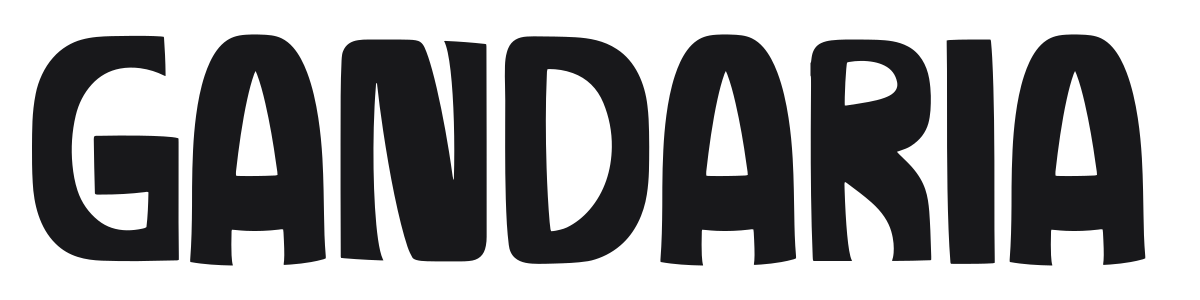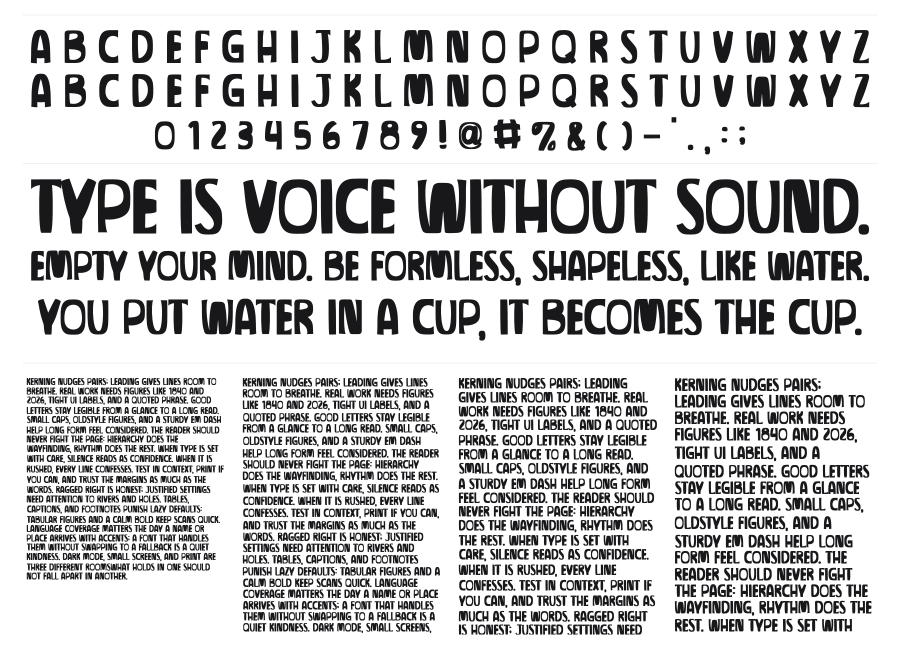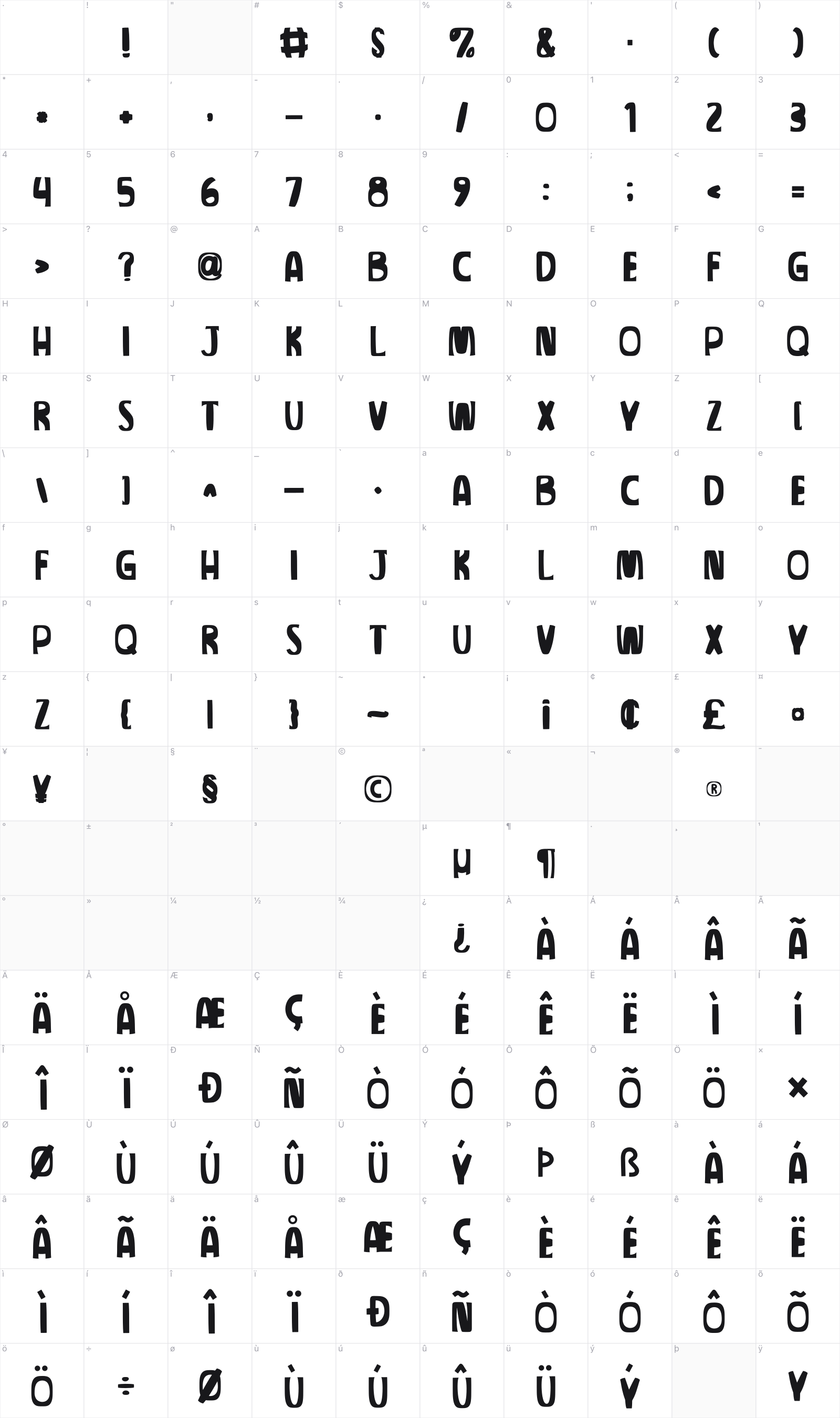
Gandaria
Gandaria is a heavy display font with a bold, blob-like personality drawn from 1960s and 70s groovy lettering traditions. Each character has an inflated, organic quality, with swelling strokes and pinched counters that give the word texture an almost hand-sculpted feel. It brings a retro funky energy to posters, album art, and any branding that wants to feel loose and alive.